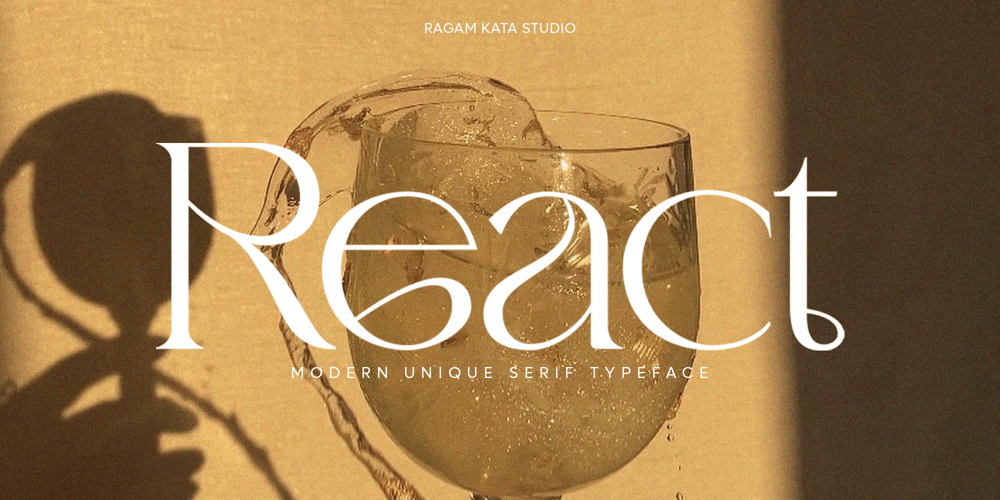
React Font Family was designed by Yogiswhara Dio Prakoso Riadi and published by RagamKata. React contains 1 styles and family package options. React is a classy, bold upper and lowercase typeface that looks incredible in both large and small settings.Best used as a display for headings and logos, React clean lines and smooth curves give any project an extra touch of class. A serif modern and classic typeface that has own unique style & modern look. This typeface is perfect for an elegant & luxury logo, book or movie title design, fashion brand, magazine, clothes, lettering, quotes, and so much more.Features:- Lowercase and Uppercase- Beautiful Alternates- Numerals & Punctuation- Accented characters- MultilingualHOW TO ACCESS ALTERNATE CHARACTERSOpen glyphs panel:In Adobe Photoshop go to Window – glyphsIn Adobe Illustrator go to Window – Type – glyphsI really hope you’ll get pleasure using Reactfont and it will be perfect addition to your font collection!Contact me with an inbox message If you have any question.Thank you and enjoy!